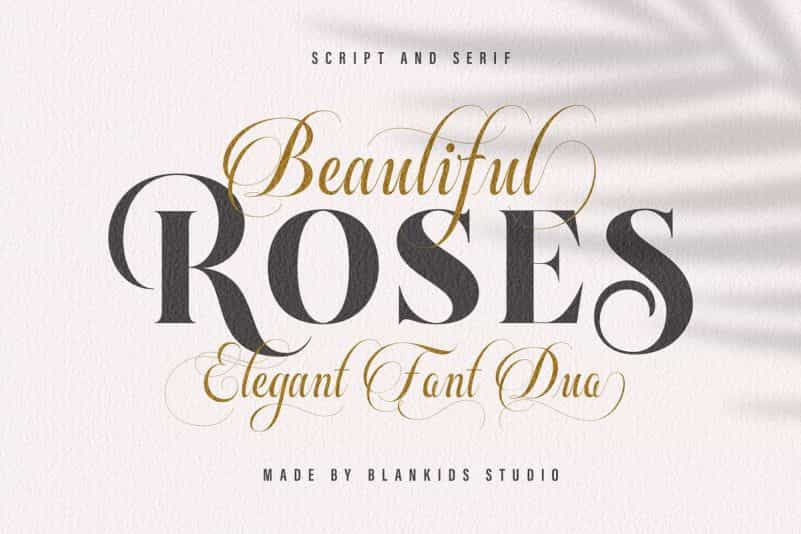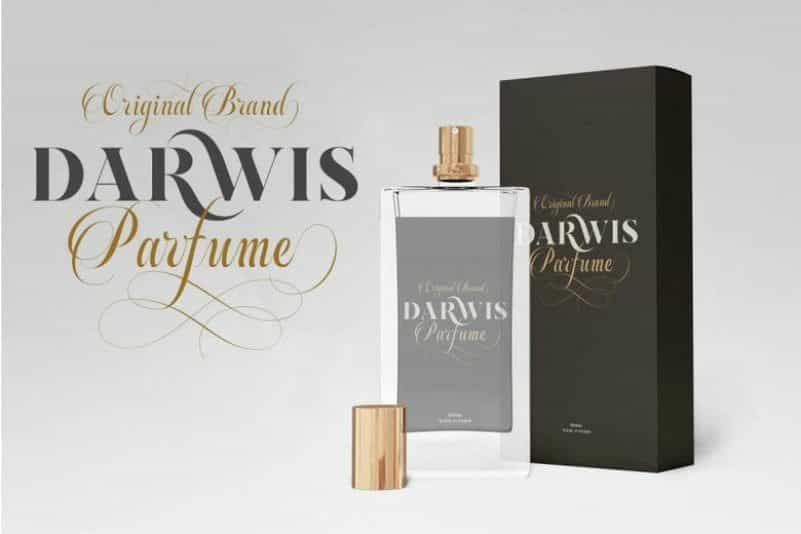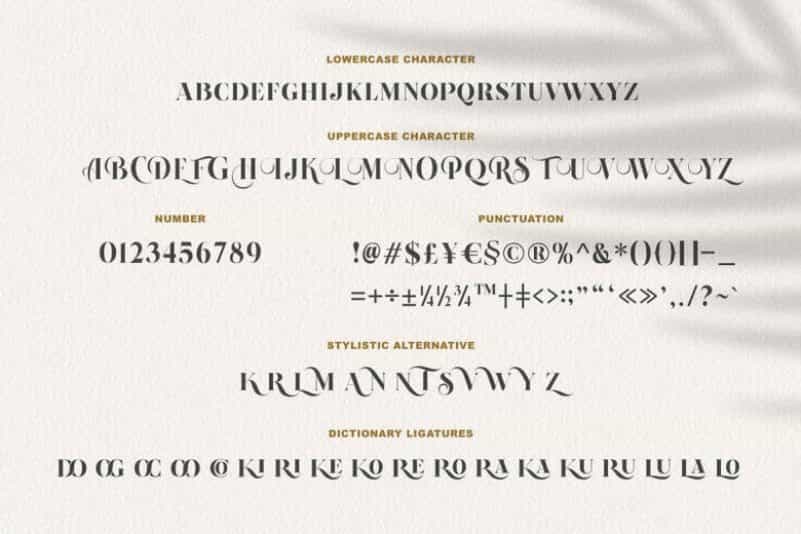
Beautiful Roses Font – Get your design a new fresh look with the new, elegant, serif font. Many of the stylish alternates will give you a lot of options to choose from. The wonderful Roses Font Duo made and posted by the Blankids Studio.